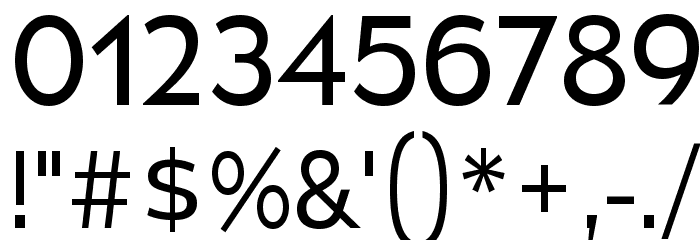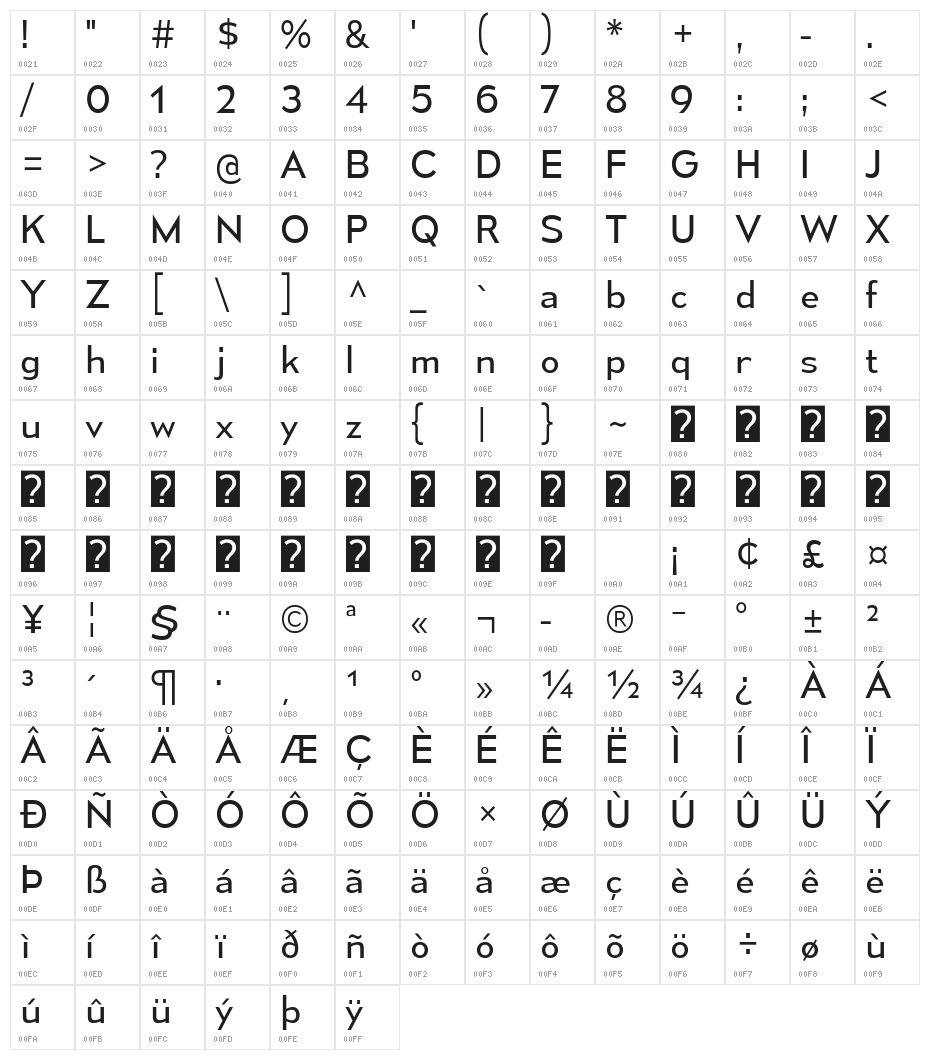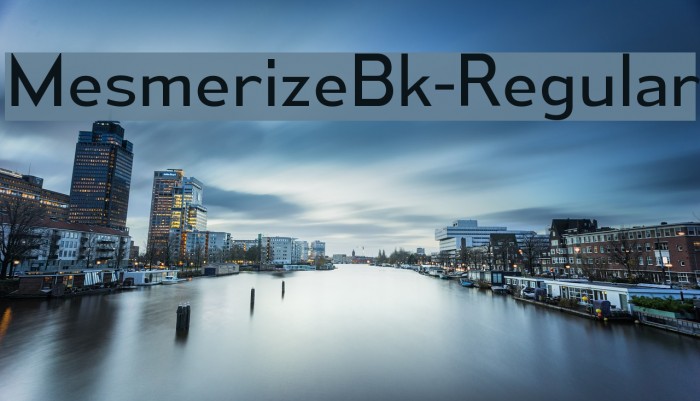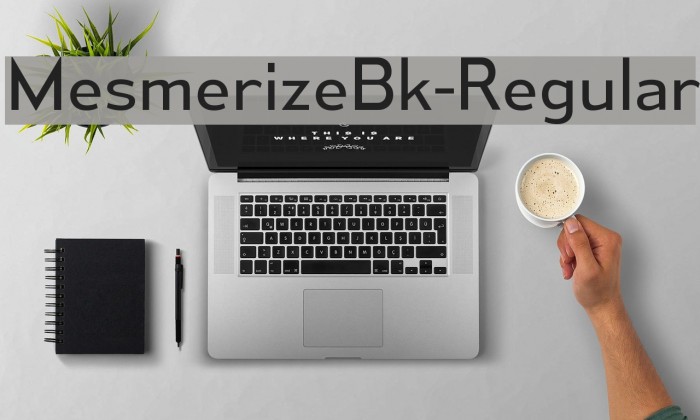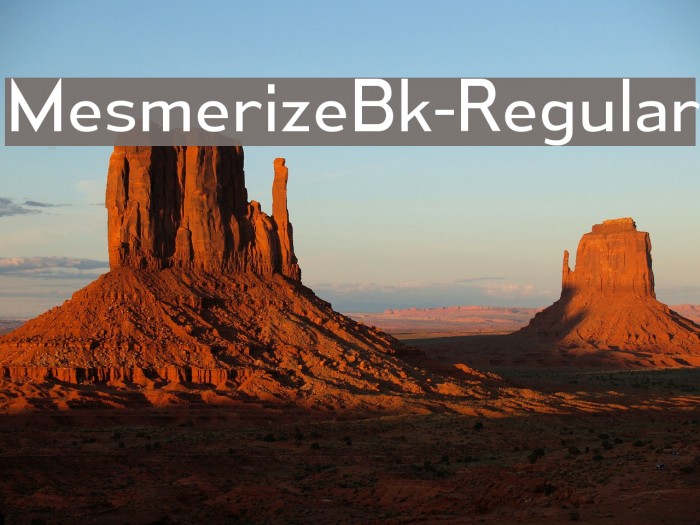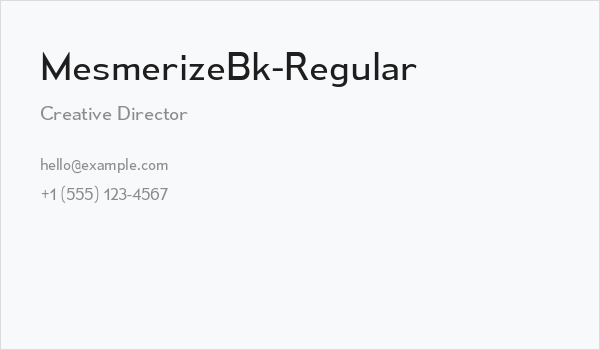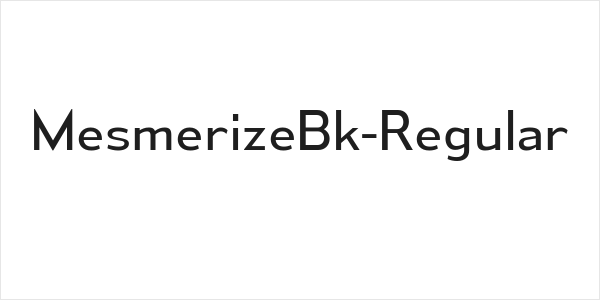
MesmerizeBk-Regular Font
MesmerizeBk-Regular Description
This font presents a clean and modern aesthetic with its sans-serif design. The characters are well-proportioned, offering a harmonious balance between curves and straight lines. The uppercase letters are bold and assertive, while the lowercase letters maintain a friendly and approachable feel. The numerals are clear and easily distinguishable, making them suitable for a variety of applications. Special characters are crafted with precision, ensuring consistency across the entire typeface. The overall appearance is sleek and versatile, making it an excellent choice for contemporary design projects.